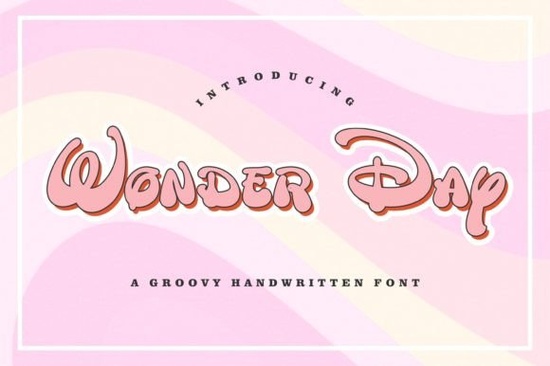
If you’ve been searching for a playful, nostalgic font that adds personality without feeling overdone, the Wonder Day Font might be exactly what your next project needs. It’s a retro handwritten style with just enough whimsy to feel fun, not childish and it carries subtle echoes of classic Disney lettering without being a direct copy. Whether you’re designing greeting cards, branding a small shop, or personalizing a t-shirt, this font brings warmth and character in a way that feels both familiar and fresh.
What makes Wonder Day especially useful is how well it pairs with other script fonts. If you’ve browsed our collection of beautiful script fonts, you know variety matters some are elegant, others casual. Wonder Day sits comfortably in the middle: polished enough for professional use, but loose enough to feel handmade. Try combining it with something like Letterland for layered quotes or social media graphics where you want contrast without clashing.
Who should use Wonder Day Font?
This isn’t just another decorative typeface. It works best when you need to evoke emotion think birthday invites, baby announcements, café menus, or Etsy product listings. Print-on-demand sellers love it because customers respond to its friendly vibe. Small business owners find it helps their packaging or signage stand out without screaming for attention. And crafters? They use it on everything from vinyl decals to hand-painted signs because it scans beautifully and cuts cleanly.
You’ll also appreciate how readable it stays at smaller sizes. Many handwritten fonts lose legibility once scaled down, but Wonder Day holds up surprisingly well even in paragraph text if you’re going for a journal-style layout. Pair it with clean sans-serifs or minimalist serifs to keep things balanced. For more pairing ideas, check out our guide to stylish script fonts that complement bold and delicate styles alike.
How does it compare to similar fonts?
If you’ve used Front Picture or Kindred, you already know Creative Fabrica offers plenty of expressive scripts. Wonder Day stands apart by leaning into vintage Americana rather than modern calligraphy. It doesn’t have the flourishes of formal scripts, nor the rigid structure of digital handwriting. Instead, it feels spontaneous like someone quickly jotted down a happy thought with a favorite pen.
That said, don’t assume it’s only good for “cute” projects. With the right color palette and layout, Wonder Day can look effortlessly cool on posters, album covers, or boutique labels. One designer recently used it alongside distressed textures and muted tones for a coffee brand the result was cozy, not cartoonish. You can see similar applications in our roundup of front picture-style fonts, which often serve dual purposes across print and digital.
Pro tip: Open the font in your design software and toggle through the alternate letters. Sometimes switching just one character like using a loopier “y” or a taller “t” breaks up repetition and makes your text feel truly custom. If you’re new to using alternates, our article on Kindred-style fonts walks through how to access them in common programs.
For deeper context on how Disney-inspired fonts walk the line between homage and infringement, Wonder Day avoids direct mimicry while capturing the spirit making it legally safe and creatively flexible.
- Test scale try it at 12pt and 72pt to see how details hold up.
- Pair wisely combine with a simple sans-serif for balance.
- Use alternates toggle stylistic sets for organic variation.
Start small maybe a quote graphic or a product label and let the font’s rhythm guide your layout. You’ll likely find yourself reaching for it again, not because it’s flashy, but because it quietly does the job with charm.